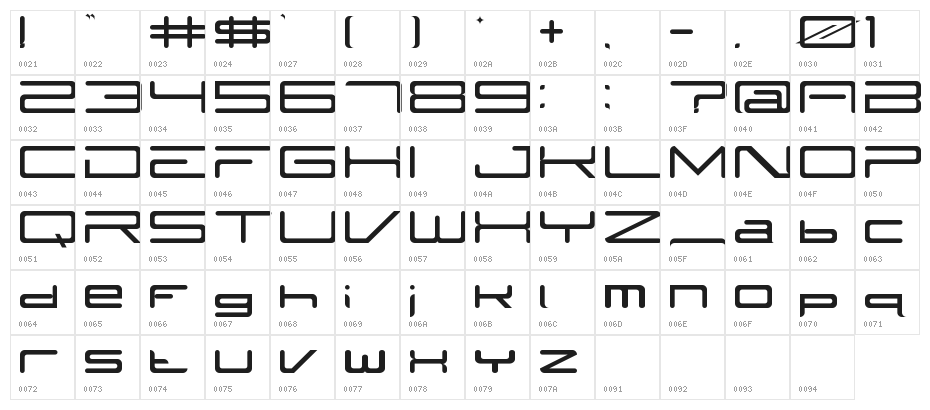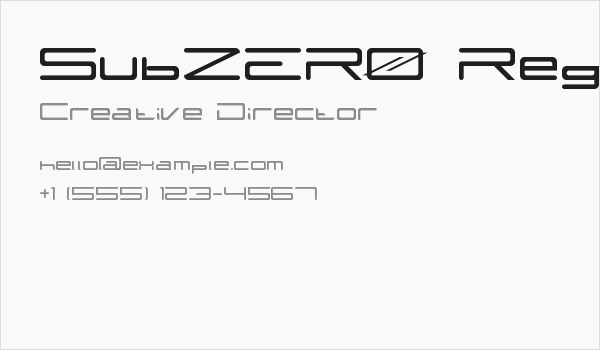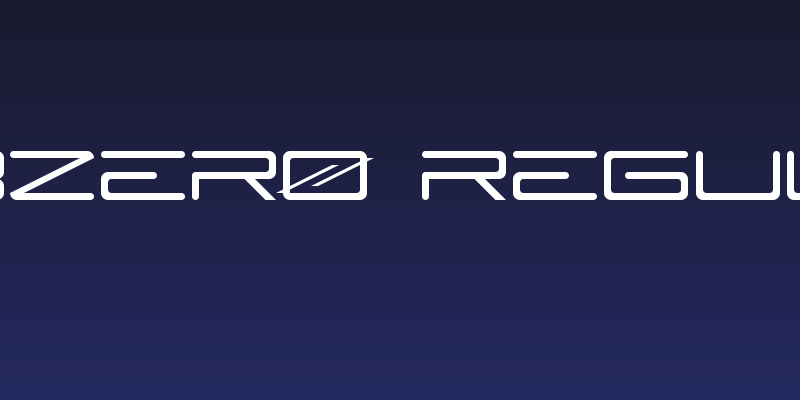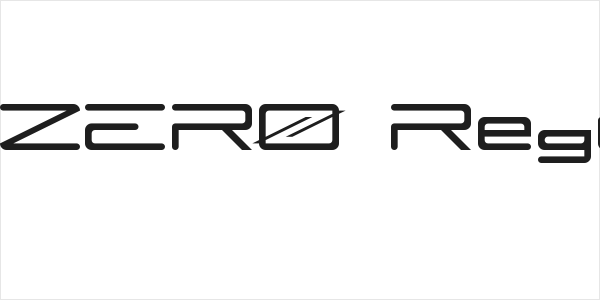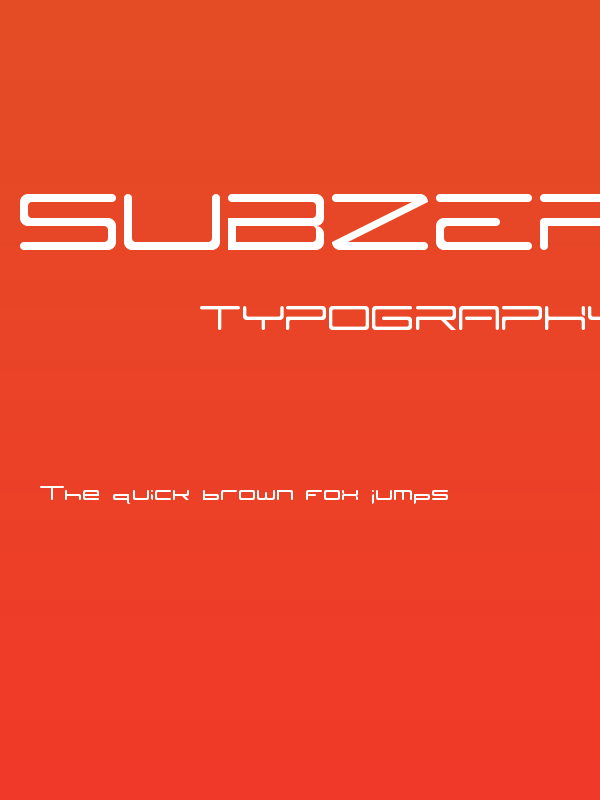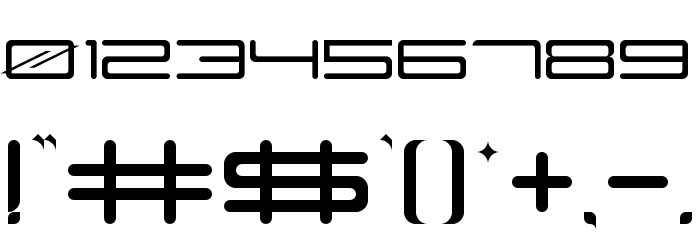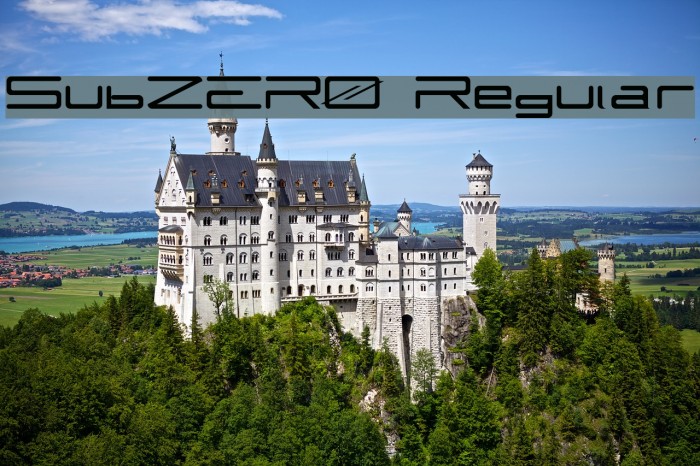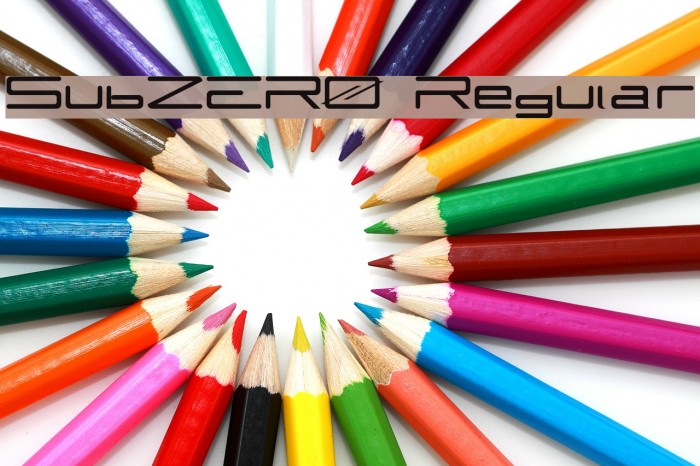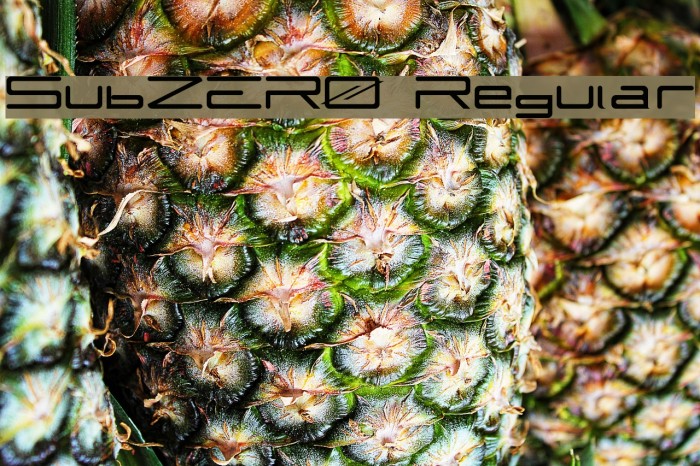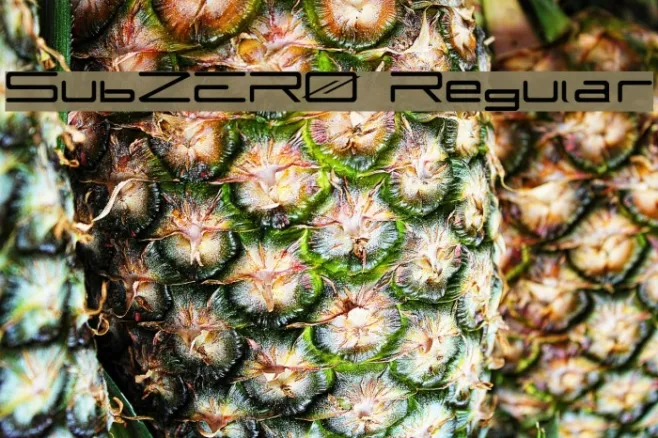
SubZER0 Regular Font
SubZER0 Regular Description
This font features a futuristic and geometric design, characterized by its clean lines and rounded edges. The uppercase letters are uniform in height, with a consistent stroke width that gives a sleek and modern appearance. The lowercase letters maintain the same geometric style, with some characters like 'g' and 'j' having distinctive descenders. The numerals are equally modern, with a uniform height and width that align with the overall aesthetic. Special characters are designed to match the futuristic theme, making them suitable for a cohesive design approach.
| Use Case | Logos, Headlines, Digital Interfaces |
| Proposed Projects | Ideal for technology branding, sci-fi themed projects, and modern digital interfaces. |